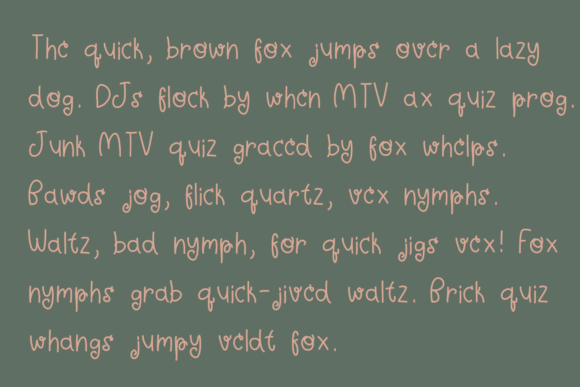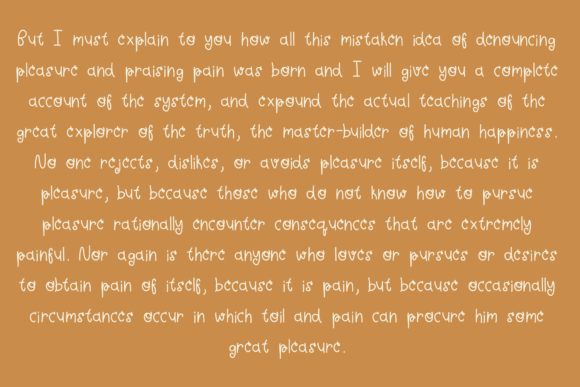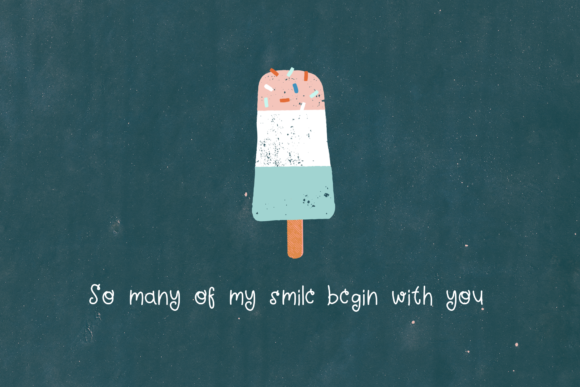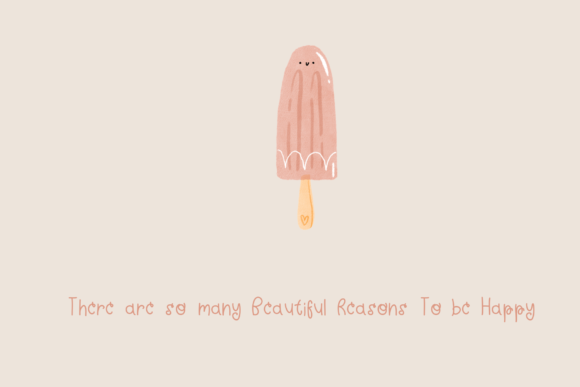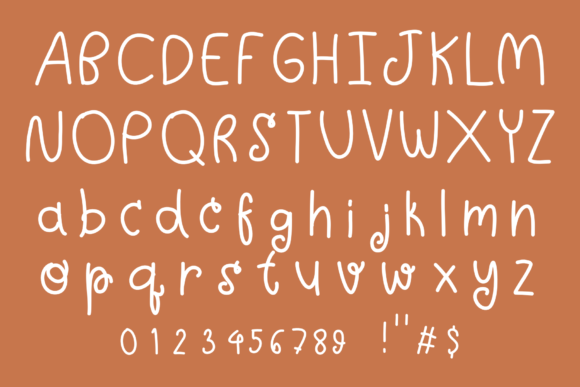
Introducing Alessandra Font: The Sweet and Friendly Handwritten Font for Your Creative Projects
Are you a designer, crafter, or DIY enthusiast looking for a font that can add a personal touch to your creative projects? Look no further than Alessandra Font, a sweet and friendly handwritten font that’s perfect for a wide range of designs. With its natural and unique style, Alessandra Font is incredibly versatile and can be used in various contexts, from crafting and scrapbooking to branding and advertising.
The Characteristics of Alessandra Font
Alessandra Font is a handwritten font that’s characterized by its smooth, flowing lines and natural, effortless look. The font features a unique and distinctive style that’s both elegant and approachable, making it perfect for designs that require a personal touch. Whether you’re creating a handmade card, a customized gift tag, or a brand identity, Alessandra Font is sure to add a touch of warmth and personality to your project.
The Benefits of Using Alessandra Font
So, why choose Alessandra Font for your creative projects? Here are just a few benefits of using this beautiful handwritten font:
- Unique and distinctive style: Alessandra Font has a one-of-a-kind look that’s sure to set your designs apart from the crowd.
- Natural and effortless look: The font’s smooth, flowing lines give it a natural and effortless look that’s perfect for creating handmade or DIY-style designs.
- Versatile: Alessandra Font can be used in a wide range of contexts, from crafting and scrapbooking to branding and advertising.
- Easily readable: Despite its handwritten nature, Alessandra Font is easy to read and understand, making it perfect for designs that require a clear and concise message.
How to Use Alessandra Font in Your Designs
Alessandra Font is incredibly easy to use and can be incorporated into your designs in a variety of ways. Here are a few ideas to get you started:
- Crafting and scrapbooking: Use Alessandra Font to add a personal touch to your handmade cards, gift tags, and scrapbook pages.
- Branding and advertising: Use Alessandra Font to create a unique and memorable brand identity that’s sure to stand out from the crowd.
- Digital designs: Use Alessandra Font in your digital designs, such as social media graphics, blog posts, and email newsletters.
Tips and Tricks for Working with Alessandra Font
Here are a few tips and tricks to help you get the most out of Alessandra Font:
- Experiment with different colors: Alessandra Font looks great in a variety of colors, so don’t be afraid to experiment and find the perfect hue for your design.
- Mix and match with other fonts: Alessandra Font pairs well with a variety of other fonts, so feel free to mix and match to create a unique and interesting look.
- Use it sparingly: Alessandra Font is a beautiful font, but it can be overwhelming if used too much. Use it sparingly to add a touch of elegance and sophistication to your design.
Alessandra Font is a sweet and friendly handwritten font that’s perfect for designers, crafters, and DIY enthusiasts. With its natural and unique style, Alessandra Font is incredibly versatile and can be used in a wide range of designs. Whether you’re creating a handmade card, a customized gift tag, or a brand identity, Alessandra Font is sure to add a touch of warmth and personality to your project. So why not give Alessandra Font a try and see the difference it can make in your designs?
The only limit to what you can create with Alessandra Font is your imagination! So go ahead, get creative, and see what amazing designs you can come up with using this beautiful handwritten font.